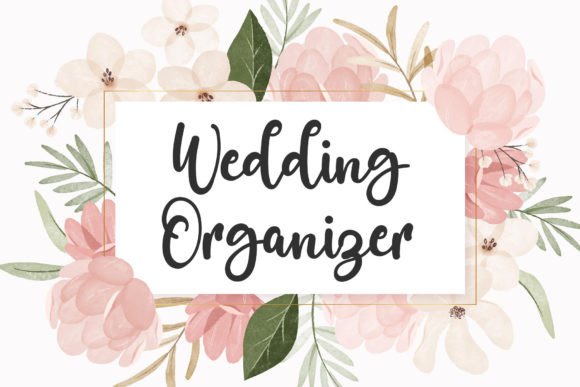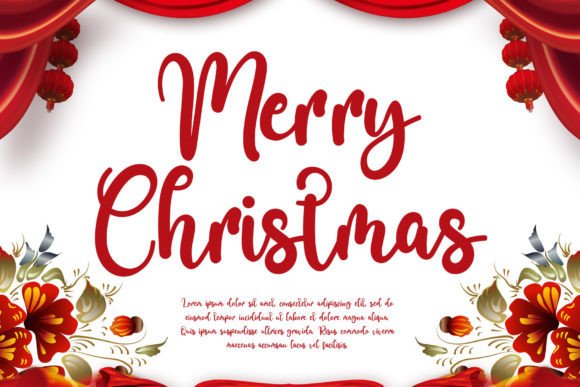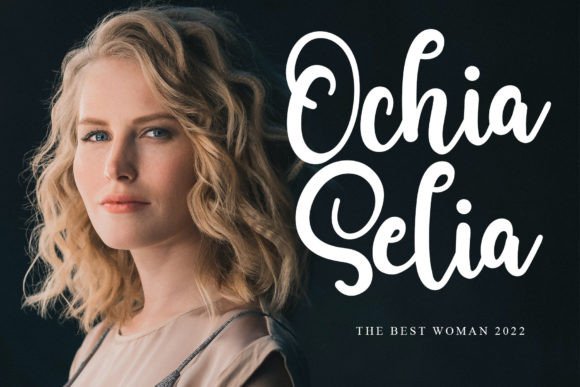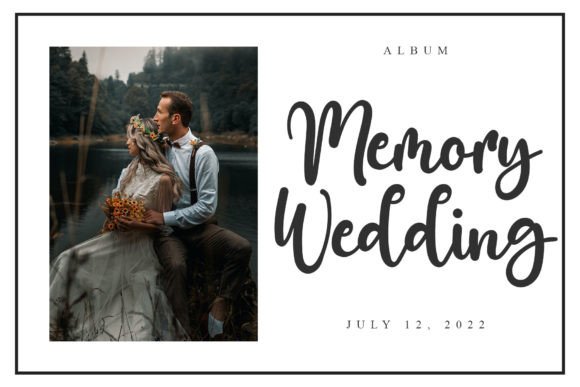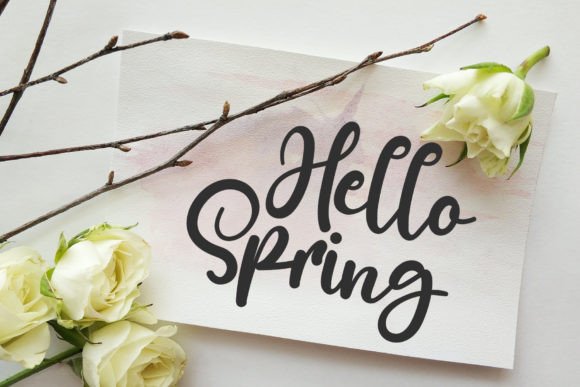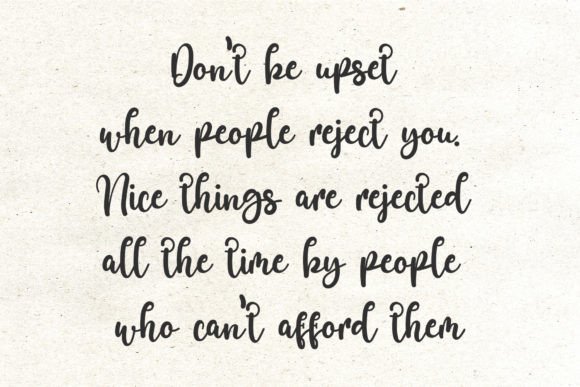
Introduction to Sloting Font
As designers, we’ve all been there – staring at a blank canvas, waiting for that perfect spark to ignite our creative project. For me, it’s the moment when I stumble upon a font that makes my heart skip a beat. The Sloting Font is one of those magical finds that can elevate any design from ordinary to extraordinary. Its sweet and cursive handwritten style is the perfect blend of elegance and whimsy, making it a must-have for any design resource.
Key Features of Sloting Font
- High-quality design resource ideal for creative projects, offering a unique and stylish touch.
- Unique characteristics: Sloting Font features a modern and minimalist design, perfect for modern branding and creative projects.
Honest Review: Sloting Font
I recently had the chance to experiment with Sloting Font for a creative project, and I must say, it’s been a pleasant surprise. This font is a high-quality design resource that offers a unique and stylish aesthetic.
However, I did encounter a few limitations during my testing. ⚠️ Limited Font Variations: The font family is relatively small, and I found myself wishing for more variations to choose from. Additionally, the font’s weight and size options are somewhat limited.
Overall, Sloting Font is a solid choice for designers looking for a stylish and free design resource. While it may not be perfect, its high-quality design and customizable transparency make it a great addition to any creative project.
Sloting Font: A High-Quality Design Resource
Common Use Cases for Sloting Font
The Sloting Font is perfect for use in creative projects such as: logos, brochures, business cards, and social media graphics. Its high-quality design makes it a great choice for any design project.
Tips for Getting the Most Out of Sloting Font
To get the most out of the Sloting Font, be sure to experiment with different font sizes and styles. You can also pair it with other design elements to create a unique and eye-catching design.
Is Sloting Font suitable for use in print materials?
Yes, Sloting Font is designed to be high-quality and legible, making it perfect for use in print materials such as business cards, brochures, and posters. Its clean lines and modern aesthetic ensure that it will look great in print, even at smaller font sizes.